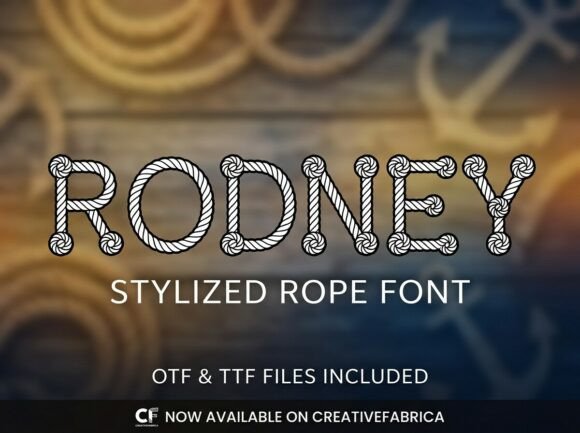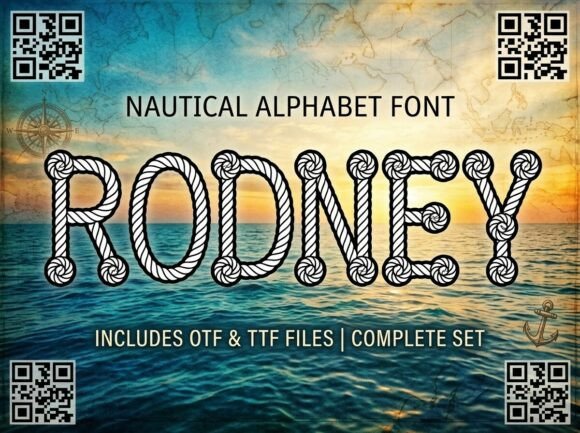
Introduction to Rodney Font
Imagine you’re working on a creative project, and you’re stuck trying to find the perfect font to bring your vision to life. You’ve browsed through countless options, but nothing seems to capture the essence of your design. That’s where Rodney Font comes in – a stunning decorative display font designed to be the center of attention.
Rodney Font is a game-changer for designers who want to break away from the ordinary and add a touch of sophistication to their work. With its unique artistic elements and strong visual personality, this font is perfect for creating bold headlines, artistic logos, and creative packaging that demand attention. Whether you’re working on a high-impact campaign or a personal project, Rodney Font is a valuable design resource that will elevate your work to the next level.
Honest Review: Rodney Font
I recently stumbled upon the Rodney Font and was excited to give it a try in my latest creative project. I was impressed by the high-quality design and the transparent background made it a breeze to work with.
- What works well: ✨ The Rodney Font has a modern and sleek design that’s perfect for a variety of creative projects. The font is highly customizable and can be easily downloaded for free.
- What works well: ✨ The transparent background makes it easy to overlay the font on any image or design without worrying about awkward cut-offs.
However, I did encounter a few limitations while working with the Rodney Font. ⚠️ One of the main issues I faced was the lack of bold font options, which made it difficult to create a striking heading for my design.
Overall, I’m impressed with the Rodney Font and would definitely recommend it as a design resource for anyone working on a creative project. While it has its limitations, the high-quality design and free download make it a great choice for designers on a budget.
Tips for Getting the Most Out of Rodney Font
For optimal results, use Rodney Font in conjunction with other design elements, such as images and shapes. Experiment with different font sizes, colors, and styles to achieve a unique look. You can also use Rodney Font in combination with other design resources to create a cohesive design.
Rodney Font is ideal for use in various design projects, including business cards, brochures, and social media graphics. Its transparent background makes it perfect for overlaying text on images, while its high quality makes it suitable for professional design projects.